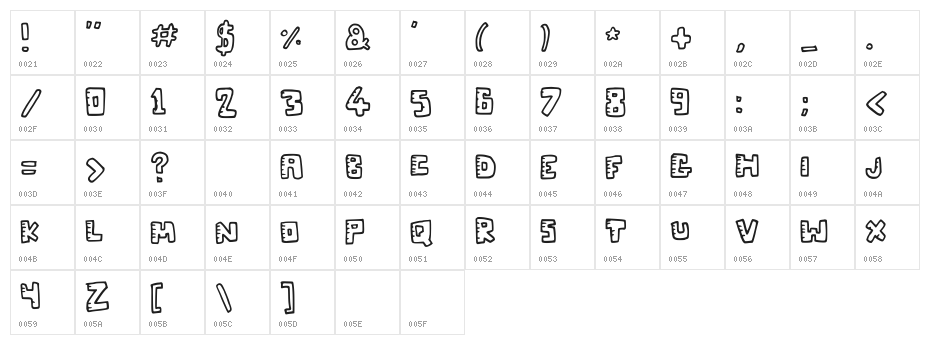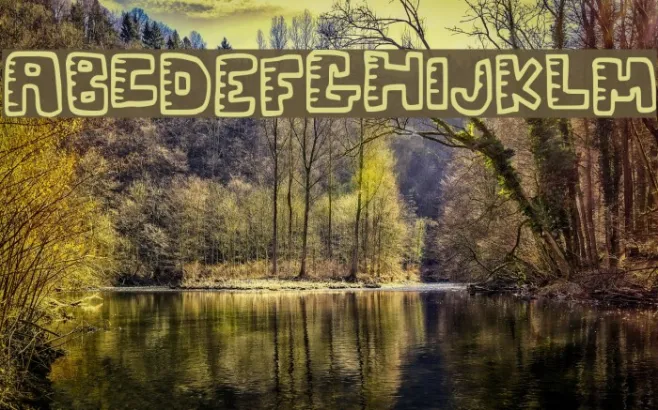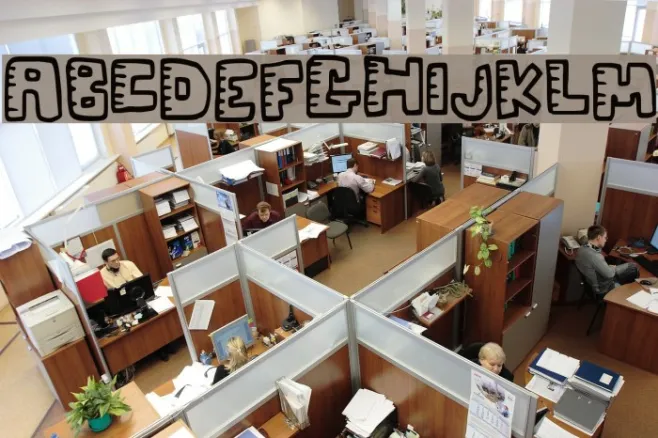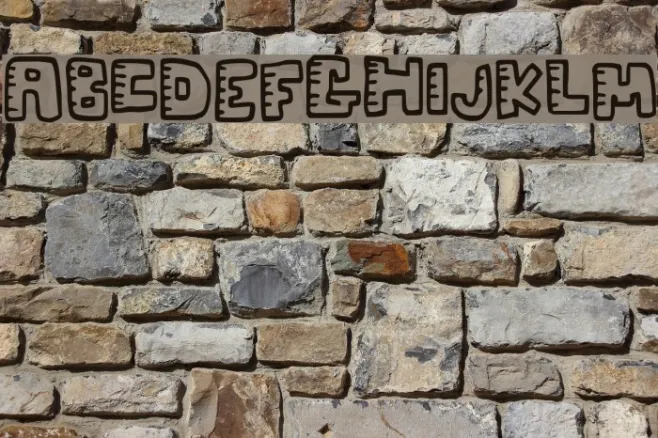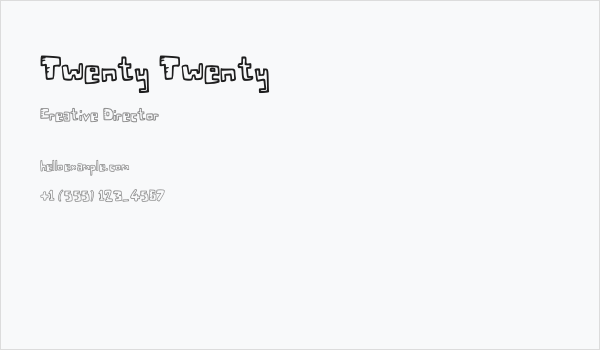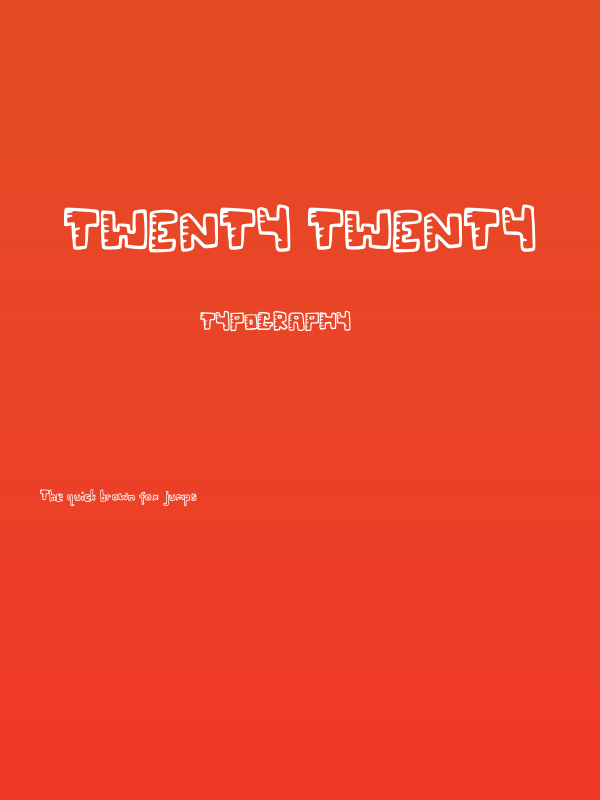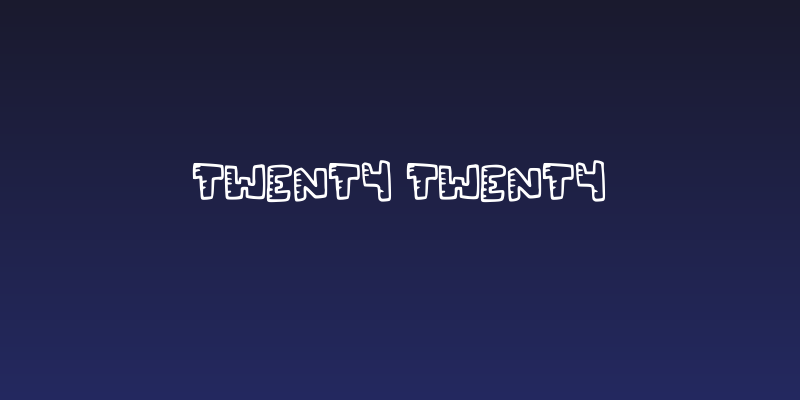
Twenty Twenty Font
Twenty Twenty Description
This font features a playful and bold design with a hand-drawn aesthetic. Each character is outlined with a thick, uneven stroke, giving it a cartoonish and whimsical appearance. The letters are slightly irregular, adding to the casual and informal feel. The uppercase and lowercase letters maintain a consistent style, with rounded edges and a sense of movement. Numbers and special characters follow the same playful design, making the font suitable for creative and fun projects. The overall look is dynamic and eye-catching, perfect for grabbing attention.
| Proposed Projects | Ideal for children's books, comic strips, playful branding, and party invitations. |